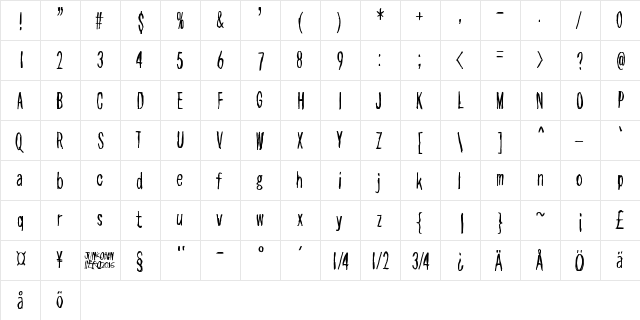
As long as I can hold my breath Regular
Design Context for As long as I can hold my breath Typeface
As long as I can hold my breath is a composed and adaptable typeface that performs quietly and consistently across a wide range of design contexts.